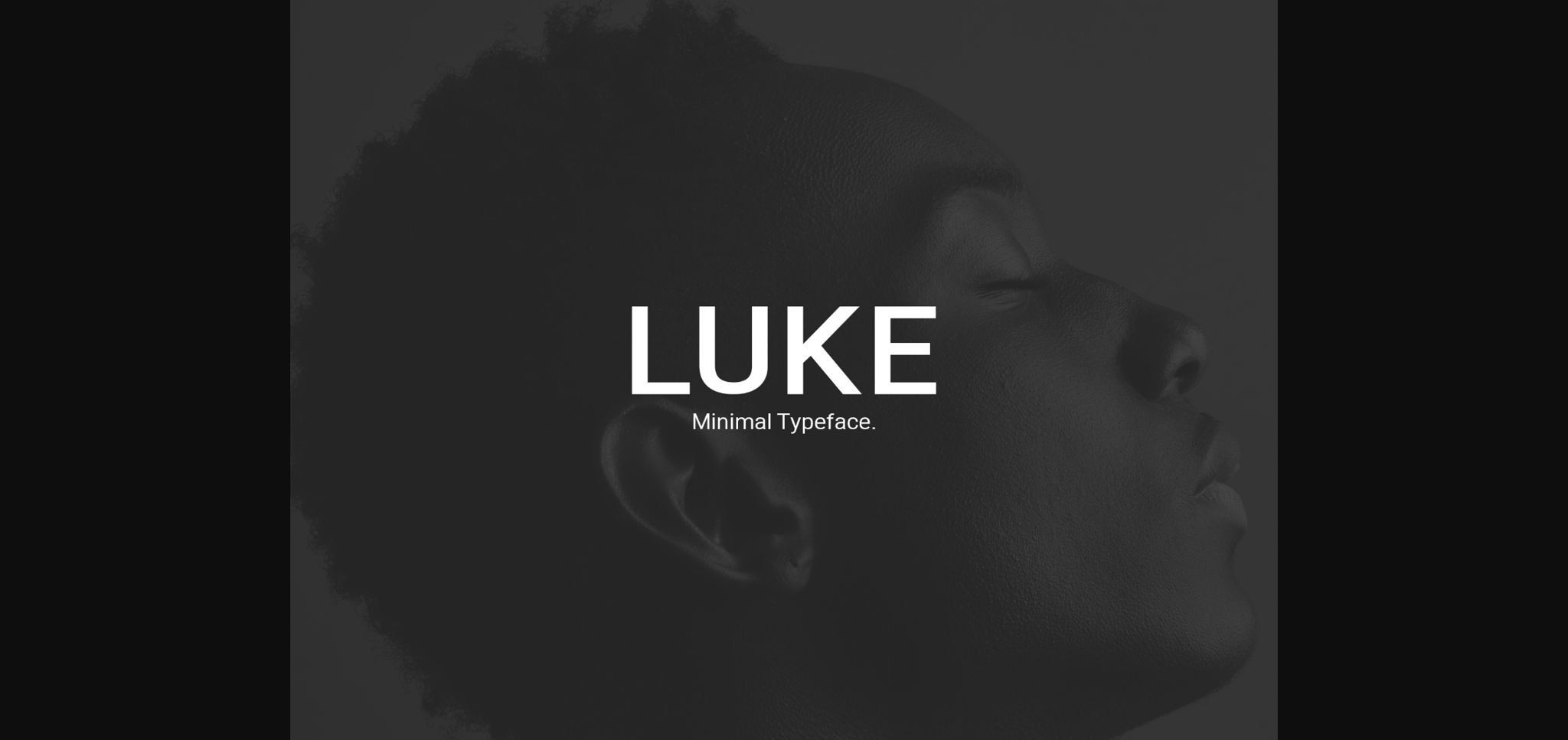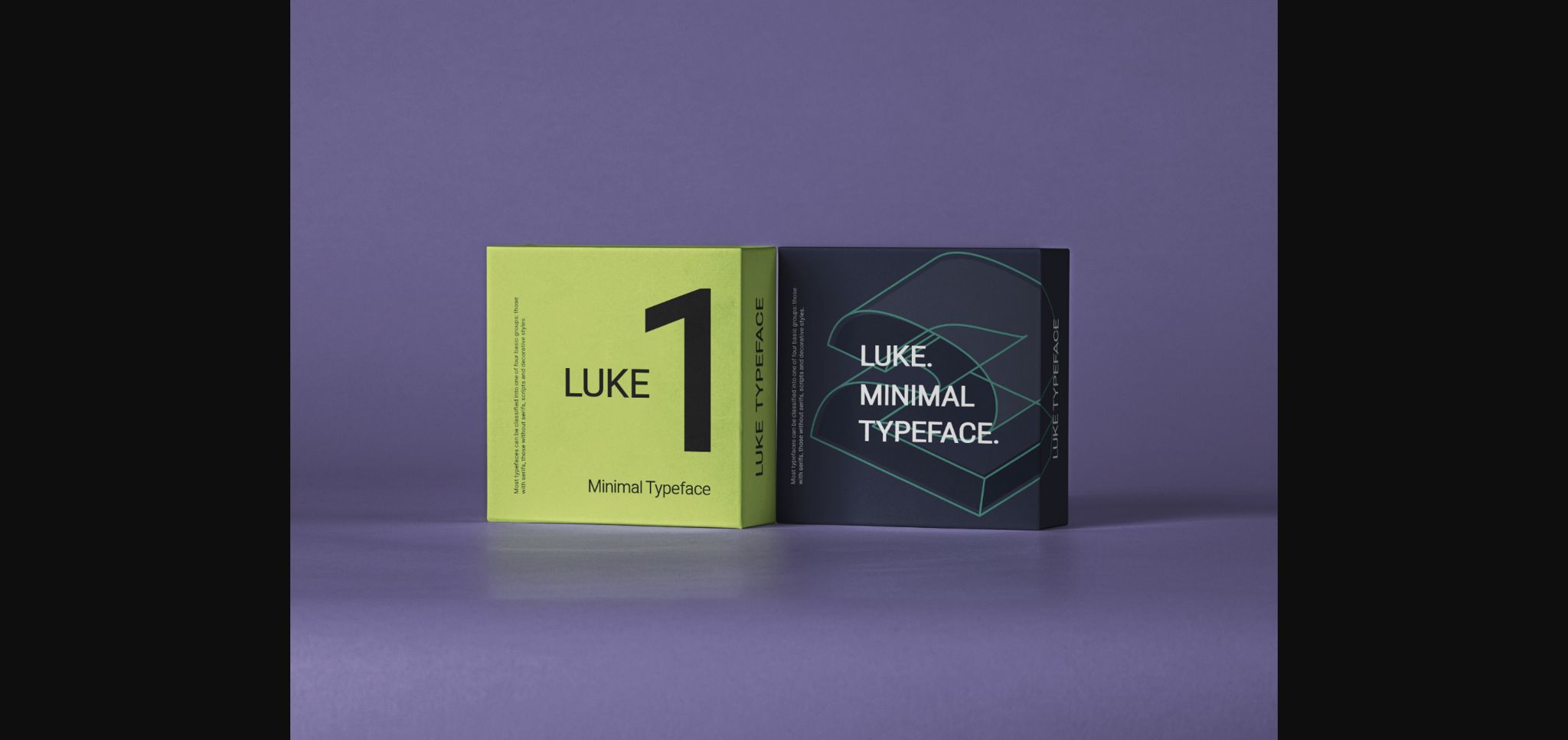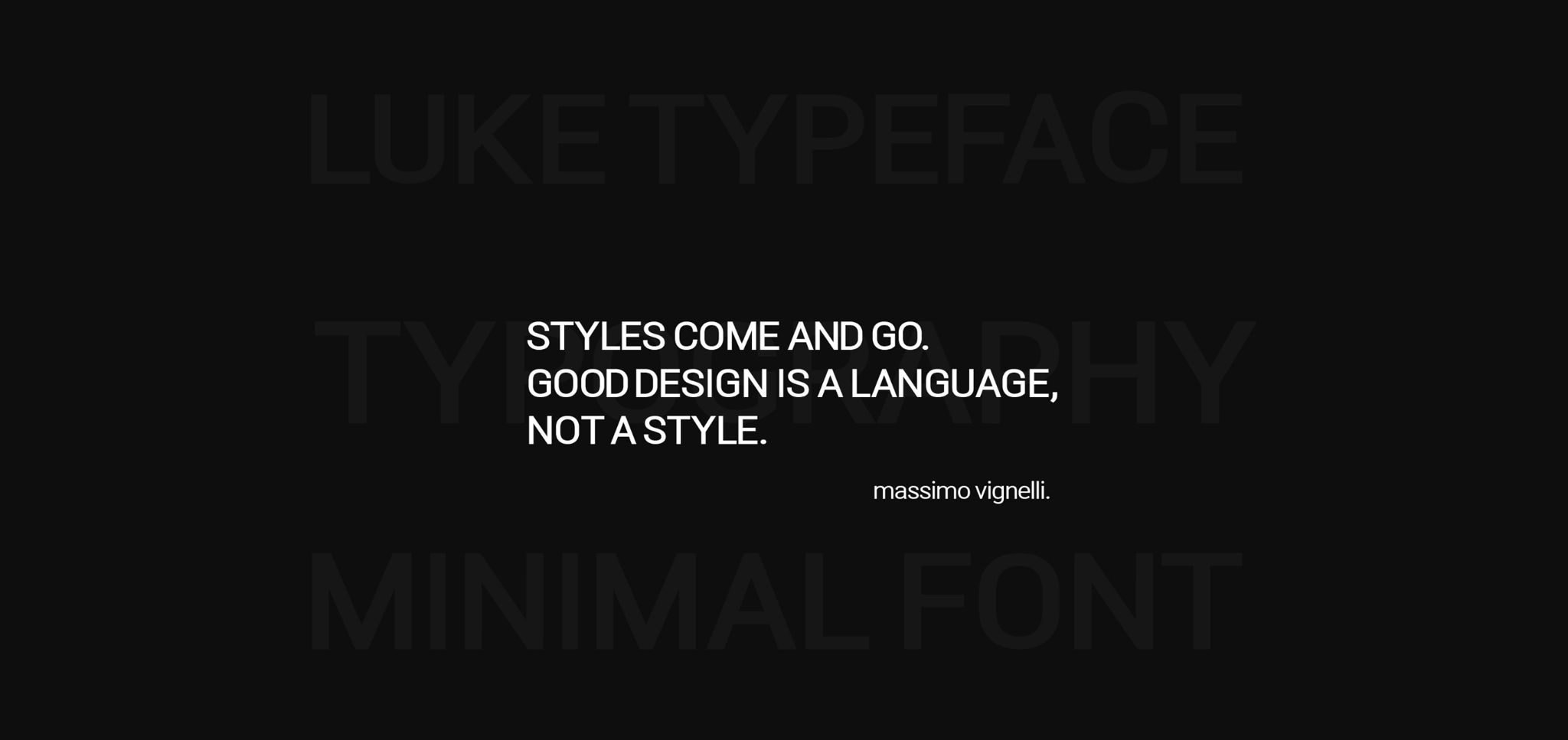
HomeSans Serif FontsLuke Font Sans Serif Fonts Luke Font FacebookXPinterestWhatsApp 1 of 5 ... Luke Font Poster 2... Luke Font Poster 3... Luke Font Poster 4... Luke Font Poster 5... About Luke Font Luke is an extraordinary sans serif font. It looks neat and strong and it brings 4 different styles that you can combine to give a powerful feel! DOWNLOAD NOW People also explored Aintzane Font Dictionary in Library Font Mock-Up Farmhouse Sign Emerald Font Rabbits and Foxes Font Tianny Font Nafila Font Gilas Font Marcopolo Font 559 0 TagsLukeLuke Font Previous articleRoan FontNext articleZebardon Font LEAVE A REPLY Cancel reply Comment: Please enter your comment! Name:* Please enter your name here Email:* You have entered an incorrect email address! Please enter your email address here Website: Save my name, email, and website in this browser for the next time I comment. Personal Use Free Awkward Personal Use Free Read more about this font Alnair Star Personal Use Free Read more about this font Shelly Personal Use Free Read more about this font Rina Personal Use Free Read more about this font BLOG Transform Your Website: Elevate Your Typography with 7 Best Web Font Generators Are you ready to transform your website's typography from ordinary to extraordinary? Great! Today, we're diving into the world of web font generators, which... The 10 Best Handwriting Fonts to Add Personality to Your Designs Best Fonts for YouTube Videos: Make Your Thumbnails Stand Out Where to Buy American Fonts Online in 2024